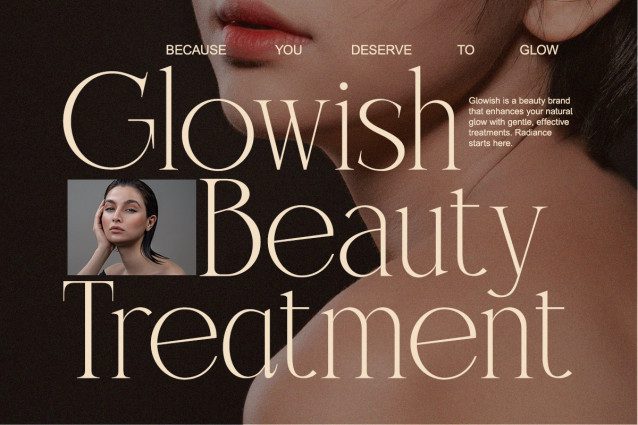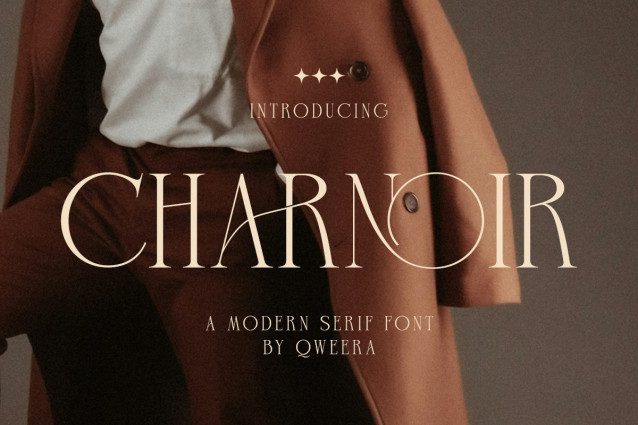
Charnoir Font
Charnoir Font is a high-class serif typeface that blends dramatic curves with minimalist finesse.Tailored for fashion editorials, branding for premium products, and elegant logos, Charnoir carries an aura of mystery and timeless beauty. Each glyph is meticulously crafted with unique alternates that elevate your typography game to the next level. Perfect for designers who crave modern elegance with a strong, graceful personality.
Whether you’re crafting a high-fashion campaign or a sophisticated identity, Charnoir sets the tone for prestige and refinement.